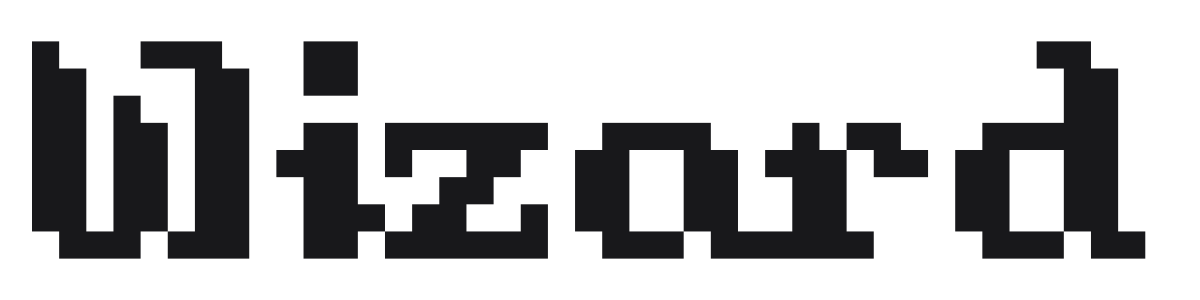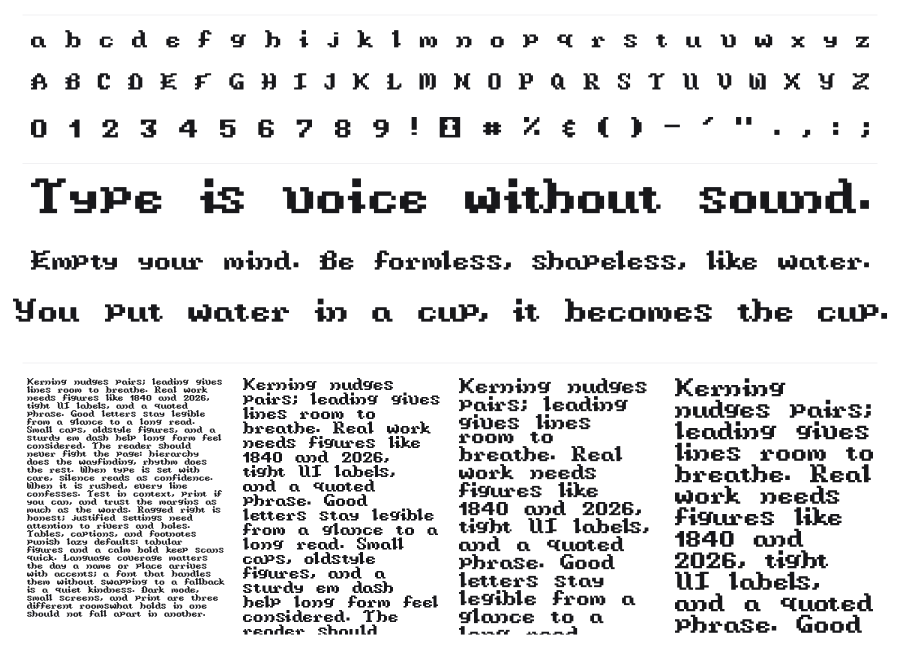
Wizard
Wizard is a bold bitmap pixel font built from square pixel blocks in the tradition of 8-bit video game typography. Every character is constructed on a strict grid, producing chunky, notched outlines that read instantly as retro digital. It carries strong arcade and early home-computing energy.